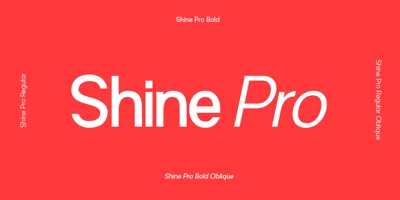
Shine Pro Font
Shine Pro Font is perfect for luxury brand identity, high-end jewelry marketing, premium cosmetics packaging, elegant event invitations, sophisticated business presentations, upscale hospitality materials, fashion industry campaigns, polished corporate communications, exclusive product launches, and brilliant applications that require radiant sophistication and professional luminosity.
What makes Shine Pro Font truly exciting is its exceptional ability to capture light and sophistication through meticulously crafted letterforms that radiate premium quality and professional brilliance. This extraordinary typeface combines luminous elegance with technical precision, featuring polished character shapes and refined proportions that convey both luxury appeal and professional excellence. The font's radiant personality and premium sophistication make it perfect for brands seeking to communicate exclusivity, quality craftsmanship, and the brilliant distinction that sets premium products and services apart from ordinary offerings.
The Shine Pro Font family includes multiple weights and styles: Light, Regular, Medium, Bold, and Polished variations designed for maximum luminous impact. Each family member maintains the distinctive brilliant character while offering complete flexibility for diverse luxury applications and premium branding systems. The comprehensive character set supports international luxury markets and sophisticated design elements, making it suitable for global premium communications.
When you choose Shine Pro Font, you're selecting a typography jewel that transforms ordinary text into brilliant communication experiences that captivate and inspire. This luminous typeface excels in applications where premium quality and sophisticated appeal are essential, delivering exceptional radiance while maintaining professional credibility. Whether you're designing luxury brands, premium packaging, exclusive events, or high-end marketing materials, this font provides the brilliant sophistication and professional luminosity that resonates with discerning audiences who appreciate exceptional quality, refined elegance, and the transformative power of truly brilliant design excellence.